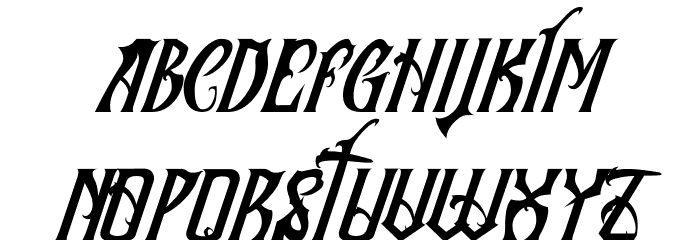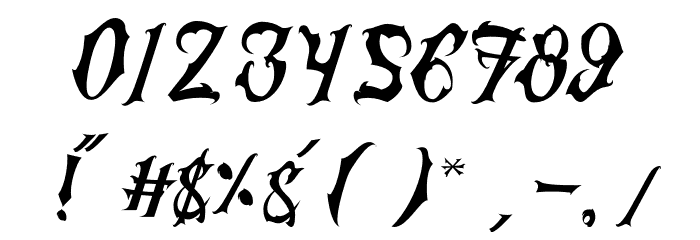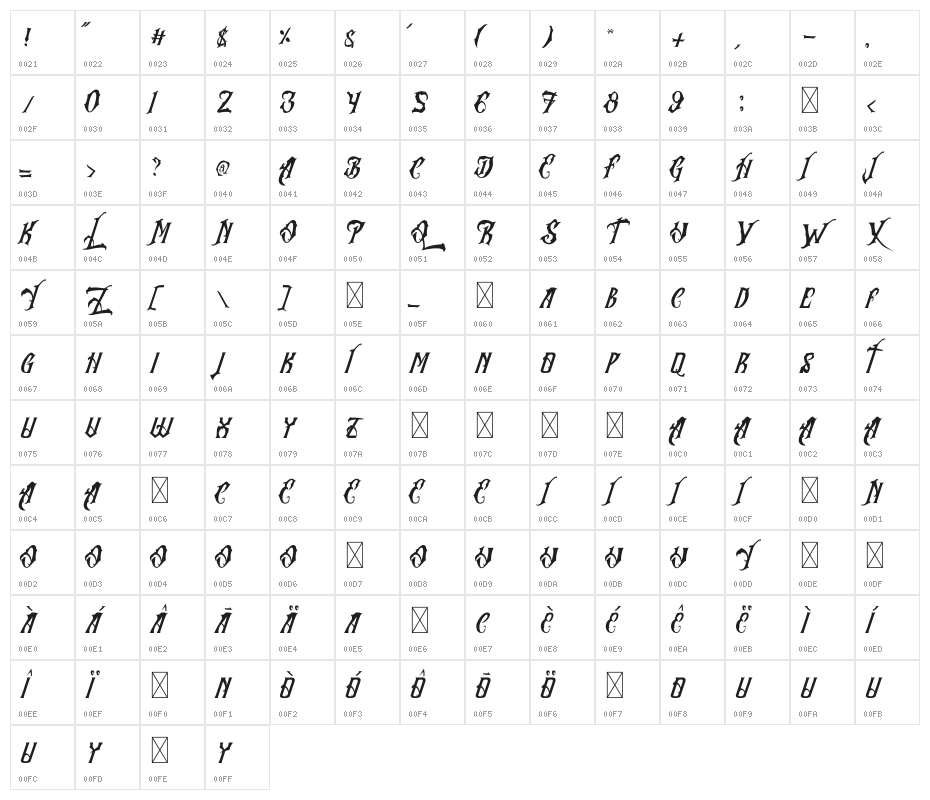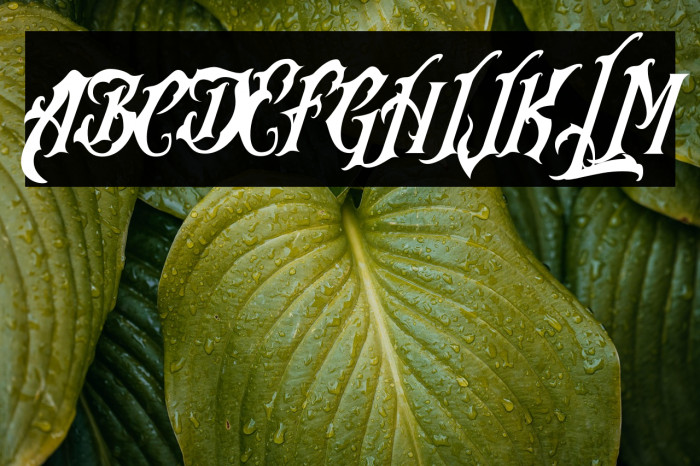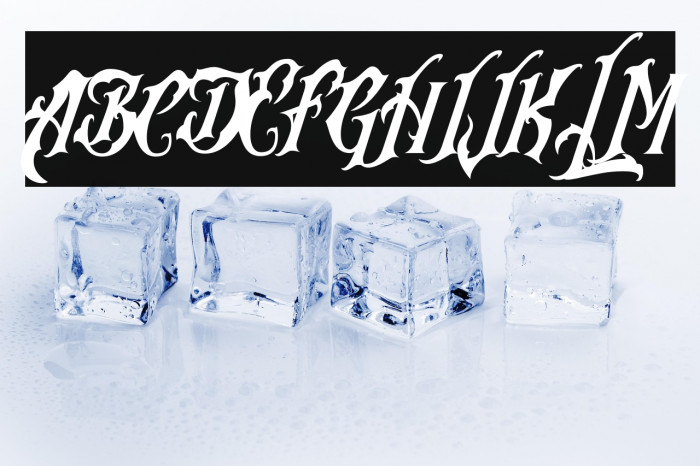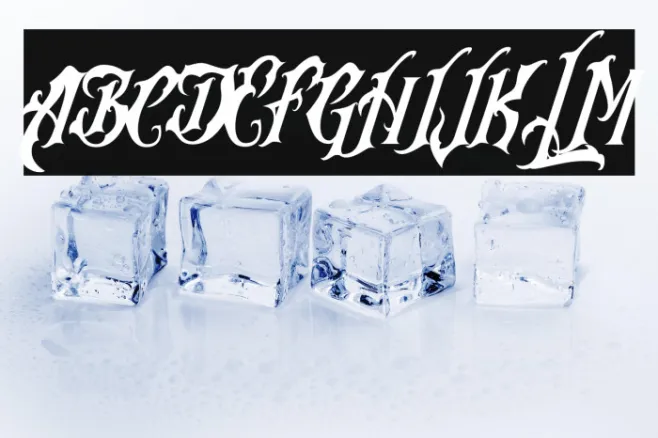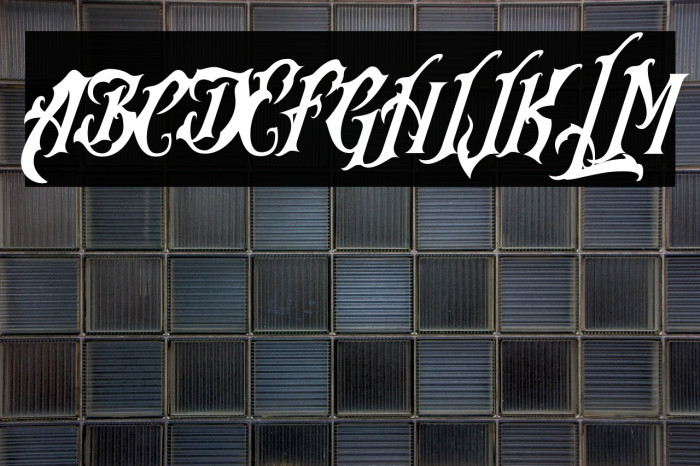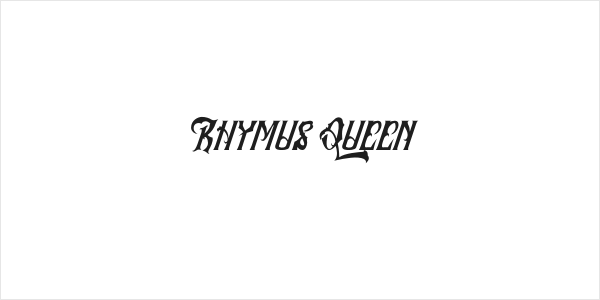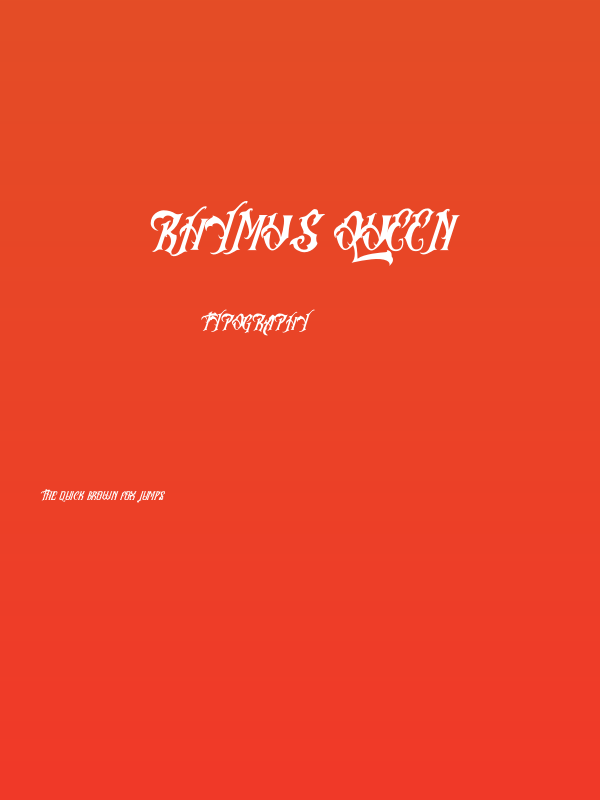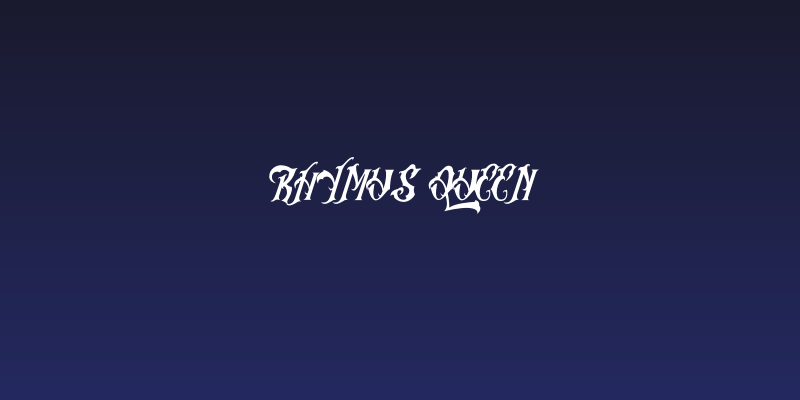
Rhymus Queen Font
This font features a bold and dramatic style with intricate, sharp edges and a gothic flair. The uppercase letters are characterized by their elaborate curves and pointed serifs, giving them a medieval and ornate appearance. The lowercase letters maintain a consistent style, with a slightly more restrained design that complements the uppercase. Numbers and special characters follow the same aesthetic, ensuring a cohesive look throughout. The overall design is highly decorative, making it suitable for projects that require a strong visual impact.
A bold, gothic-style font with intricate details and sharp edges.
- Font: Rhymus Queen
- Proposed Projects: Ideal for tattoo designs, gothic-themed posters, album covers, and branding that requires a dramatic and eye-catching typeface.